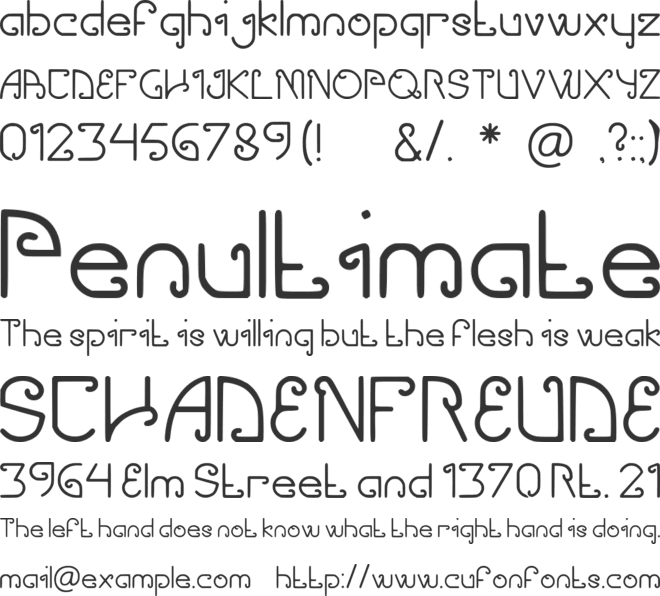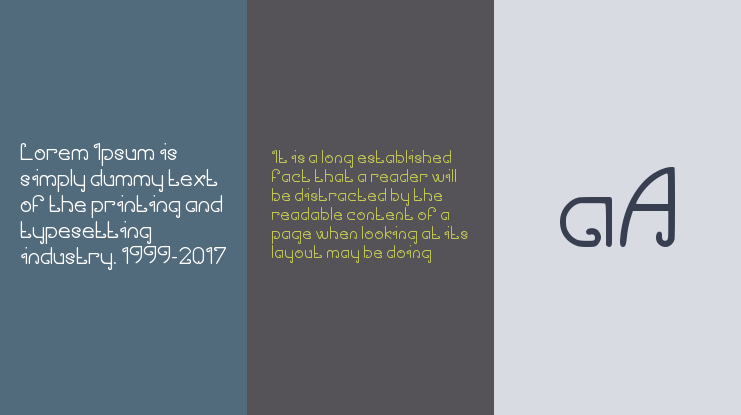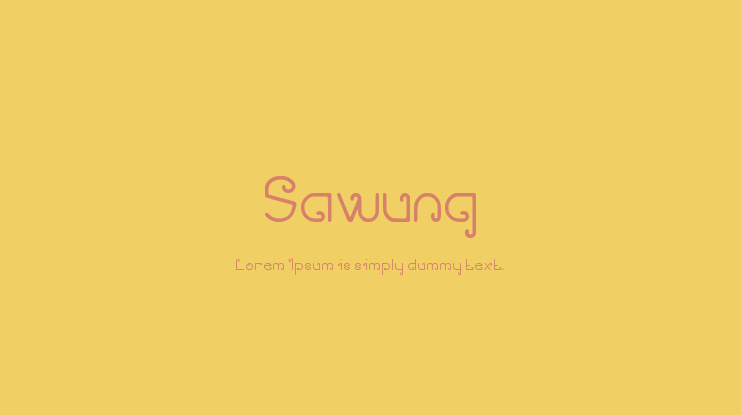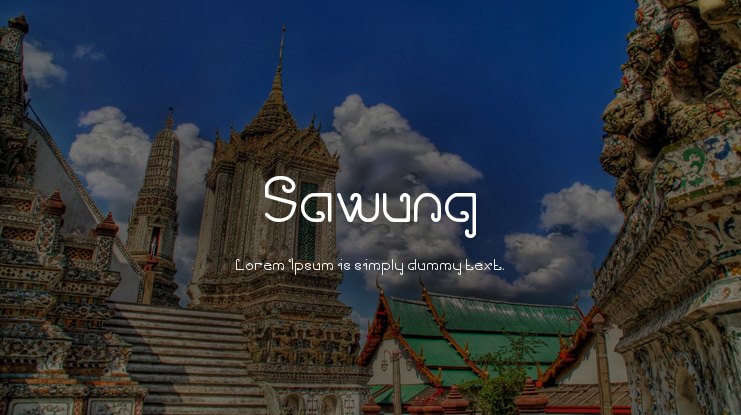
Sawung Font
hello! this font is inspired by Indonesia's Batik called Batik Bulu Hayam. it's a traditional Batik from Garut, West Java, Indonesia. Sawung is taken from ancient Java language which means rooster.